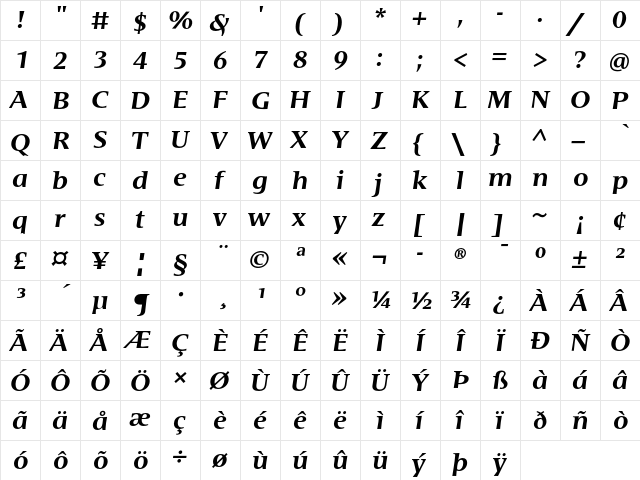
Areplos Book Pro Bold Italic Font Preview
Design Context for Areplos Book Pro Typeface
Areplos Book Pro takes a measured approach to typography — its balanced proportions and neutral character make it a reliable workhorse for both digital and print work. The dynamic lean of this cut emphasises speed and emphasis in any layout. The heavy weight commands attention and anchors typographic hierarchies.
Pro Tip: Try Areplos Book Pro for annotation and caption copy alongside an upright companion — the contrast in angle creates a dynamic but ordered typographic system.